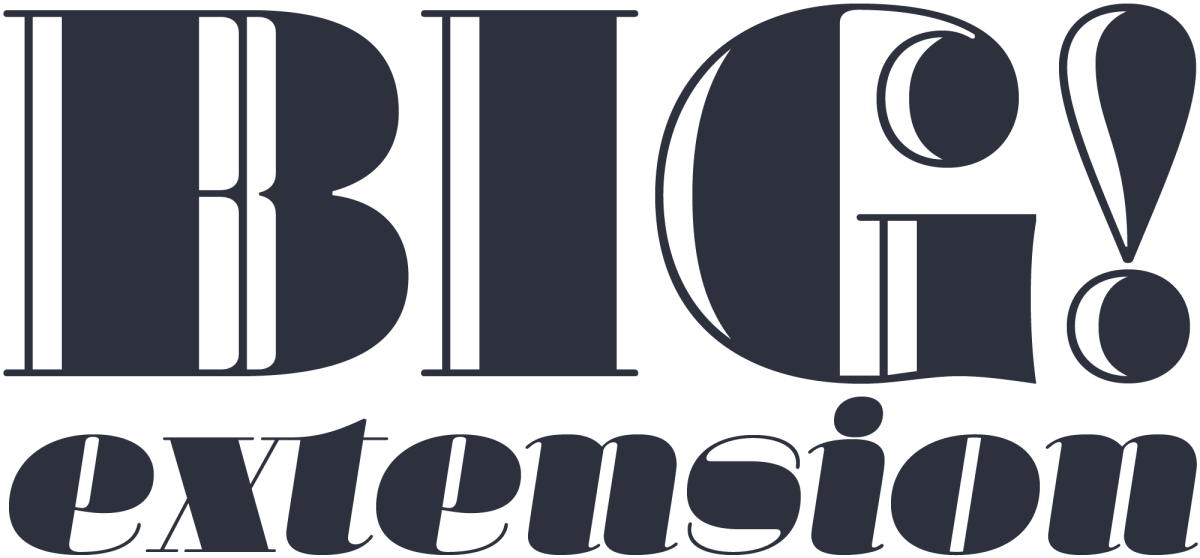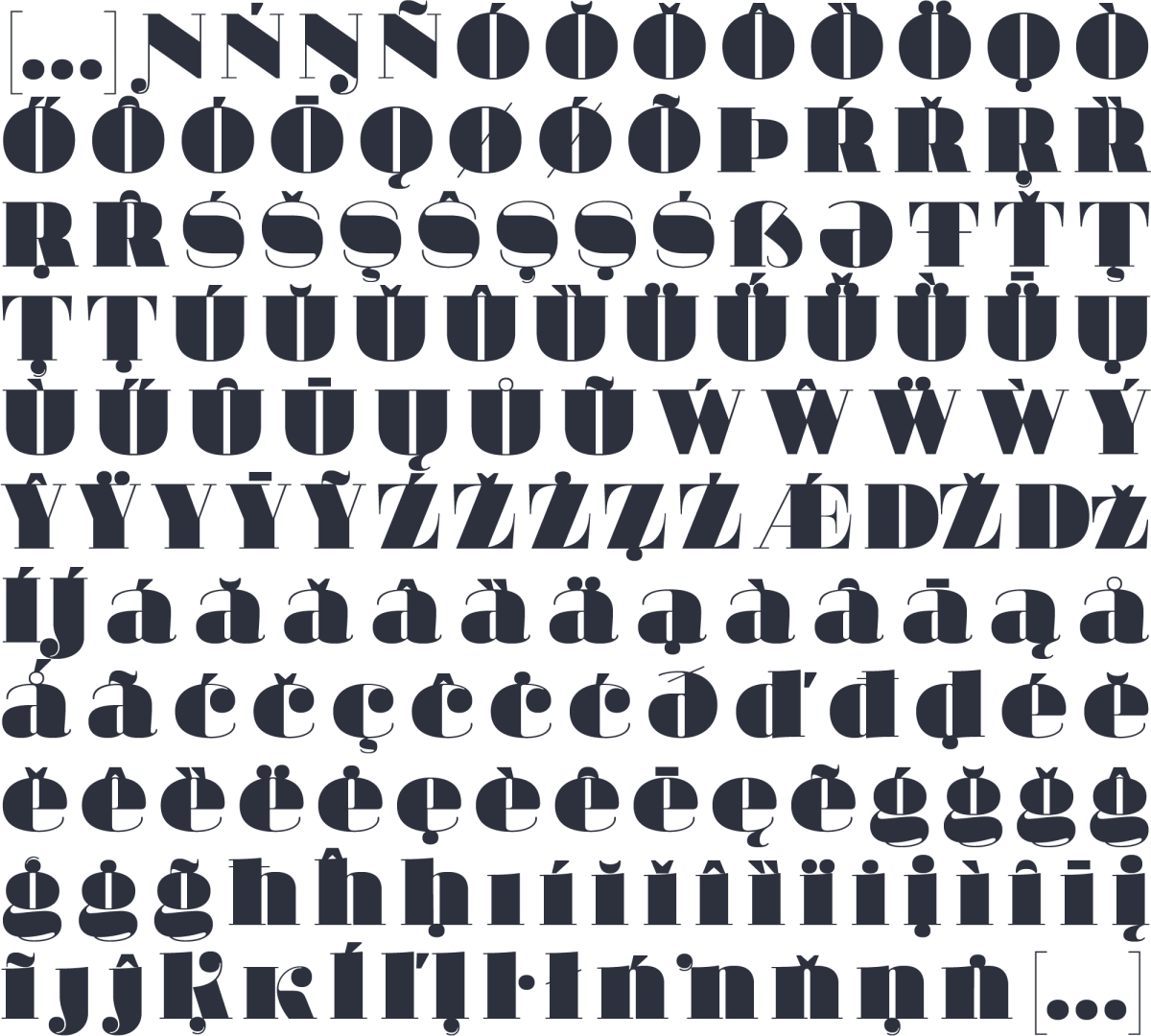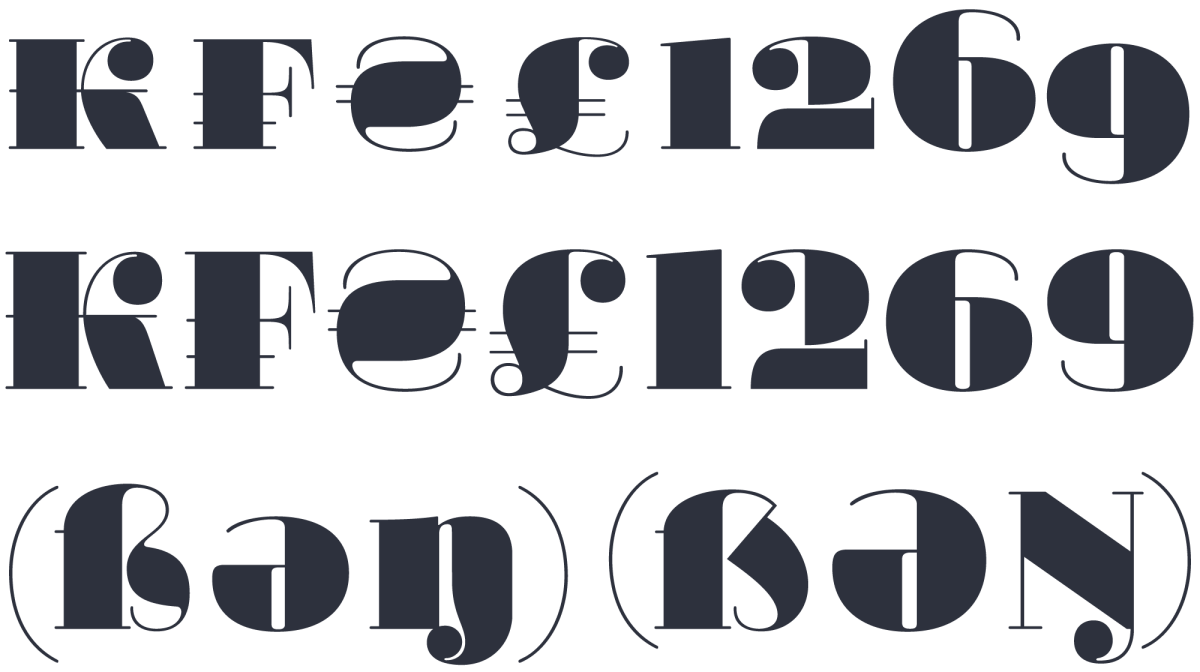
1. Latin extended charset
Now Margarita wears the Latin extended repertoire so it can speak more than 200 languages.
2. New glyphs
Additional to its many original ligatures & alternates, we added a few more, and remapped the access to all the OpenType features. We also added new currencies, oldstyle & lining figures, ordinals, case sensitive forms, historical forms… and more.
Margarita 2.0. An elegant face for huge sizes. Now it comes with a huge charset too.